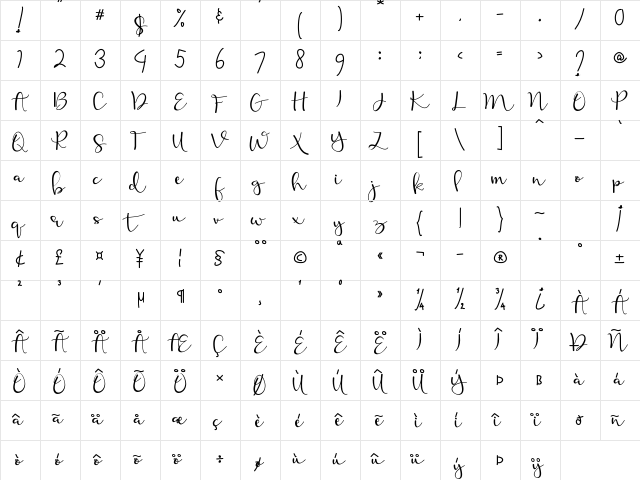
Calliope Script Regular
| Designer | Tiny Hand Letter 2020 |
Design Context for Calliope Script Typeface
Calliope Script flows with the natural rhythm of handwritten lettering, making it ideal for designs that call for warmth and personal expression.
Font Pairing: Combine Calliope Script with a simple geometric sans for maximum contrast — the tension between flowing curves and clean structure is a classic typographic pairing.
Pro Tip: Pair Calliope Script with a clean sans-serif for supporting text. The contrast between fluid script and geometric structure creates an elegant typographic hierarchy.